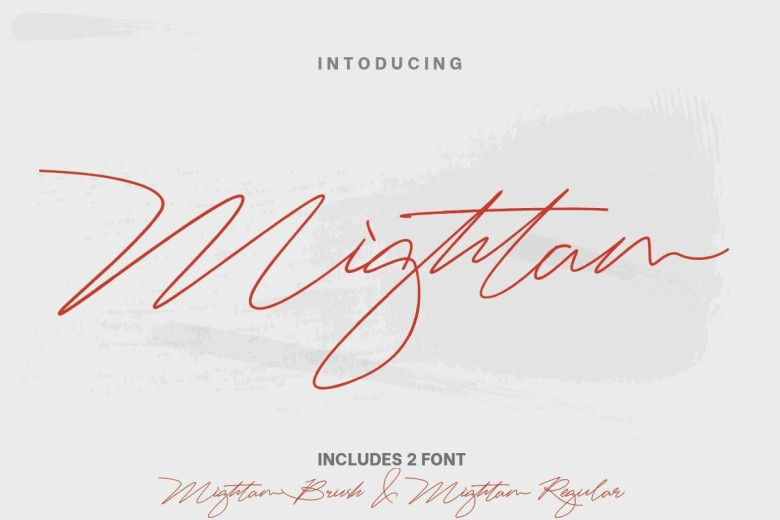
Mightam Handwritten Signature Font
Mightam Font is a relaxed and timeless handwritten signature typeface. It is PUA encoded which means you can access all of the glyphs and swashes with ease! It maintains its classy calligraphic influences while feeling contemporary and fresh.